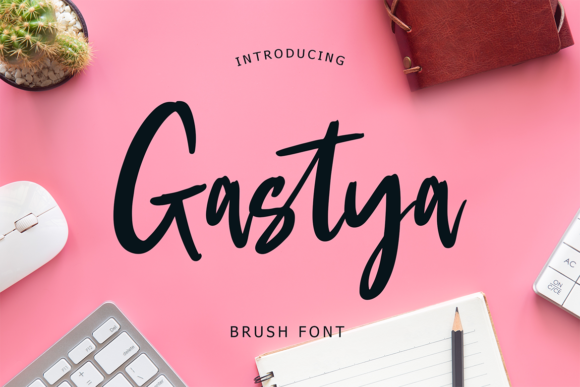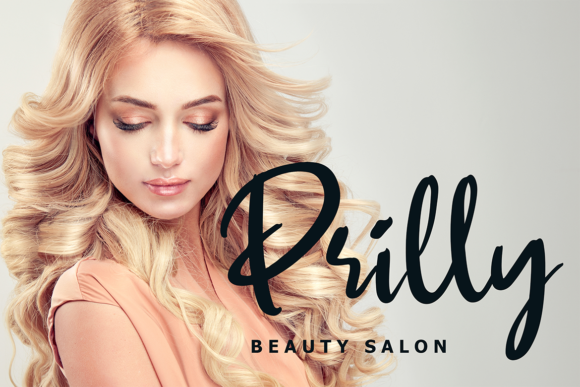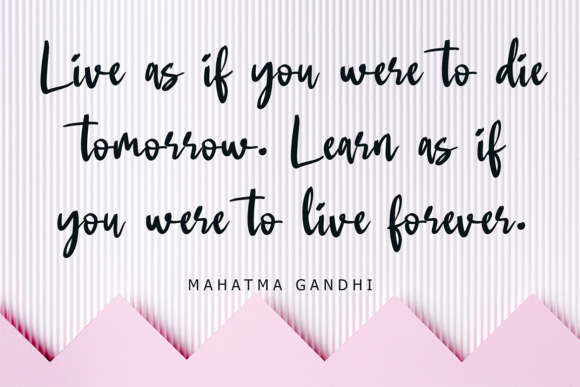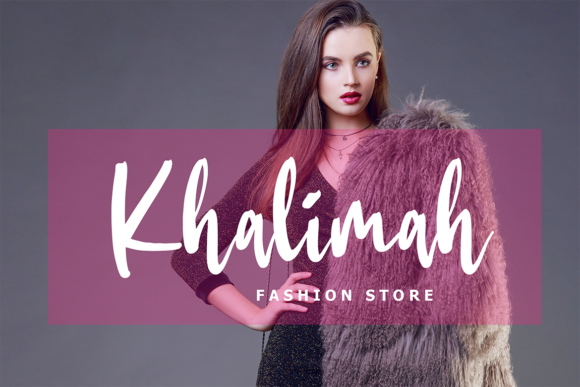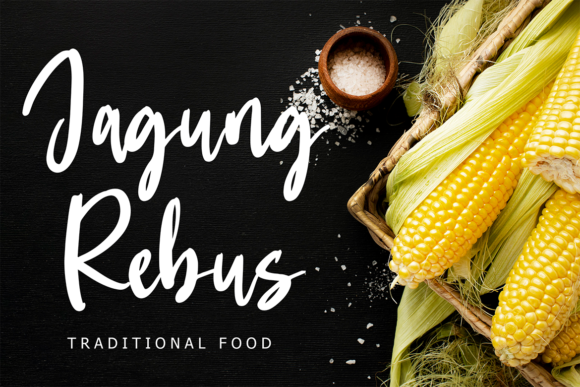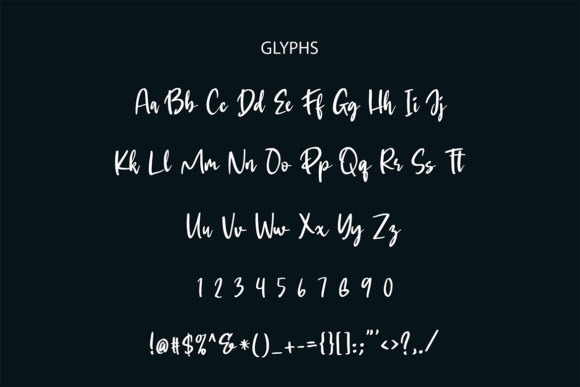
Gastya Font
About Gastya Font
Gastya is an exciting handwritten font with a brush style. Add it to your most creative ideas and notice how it makes them come alive!